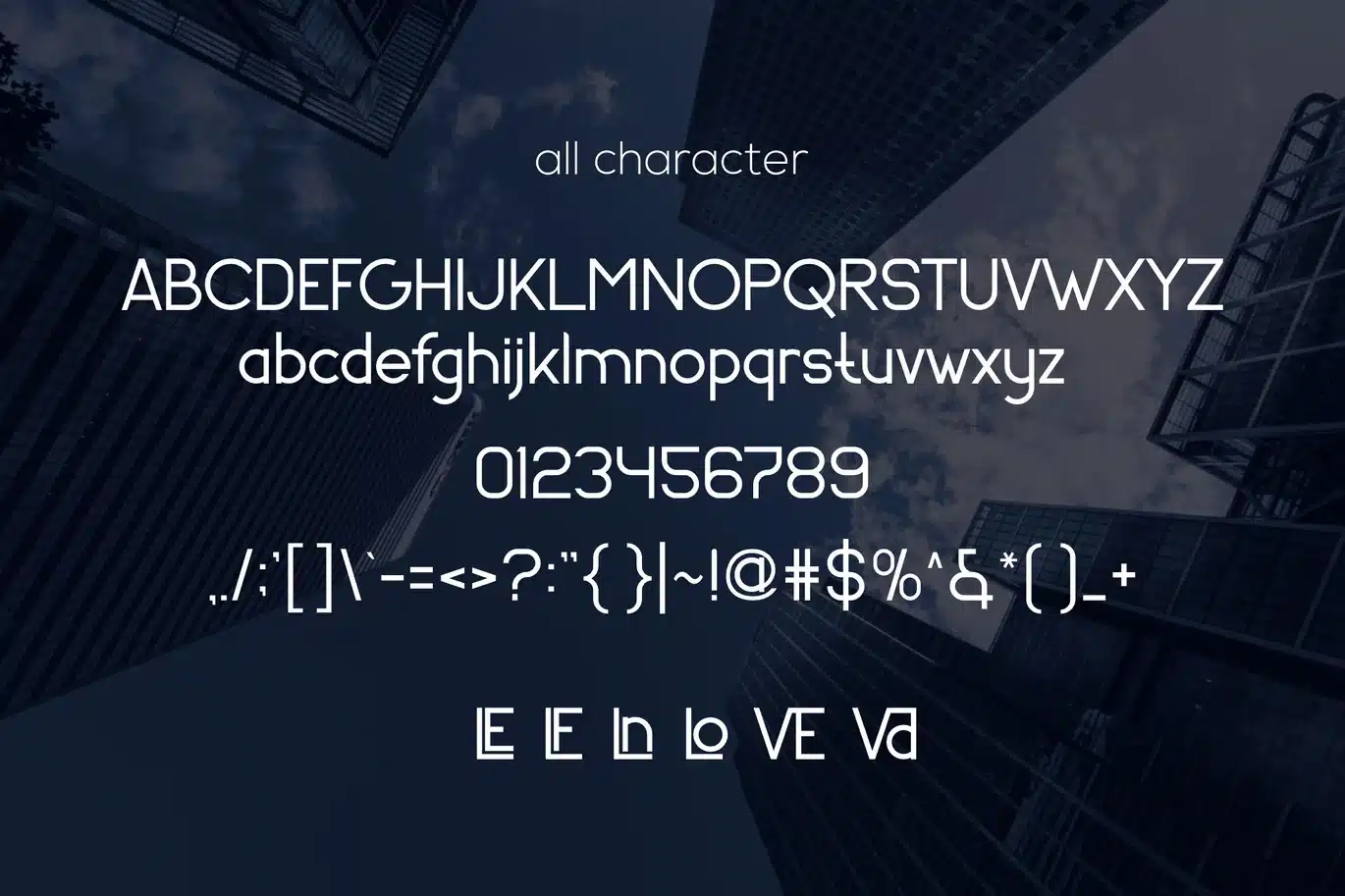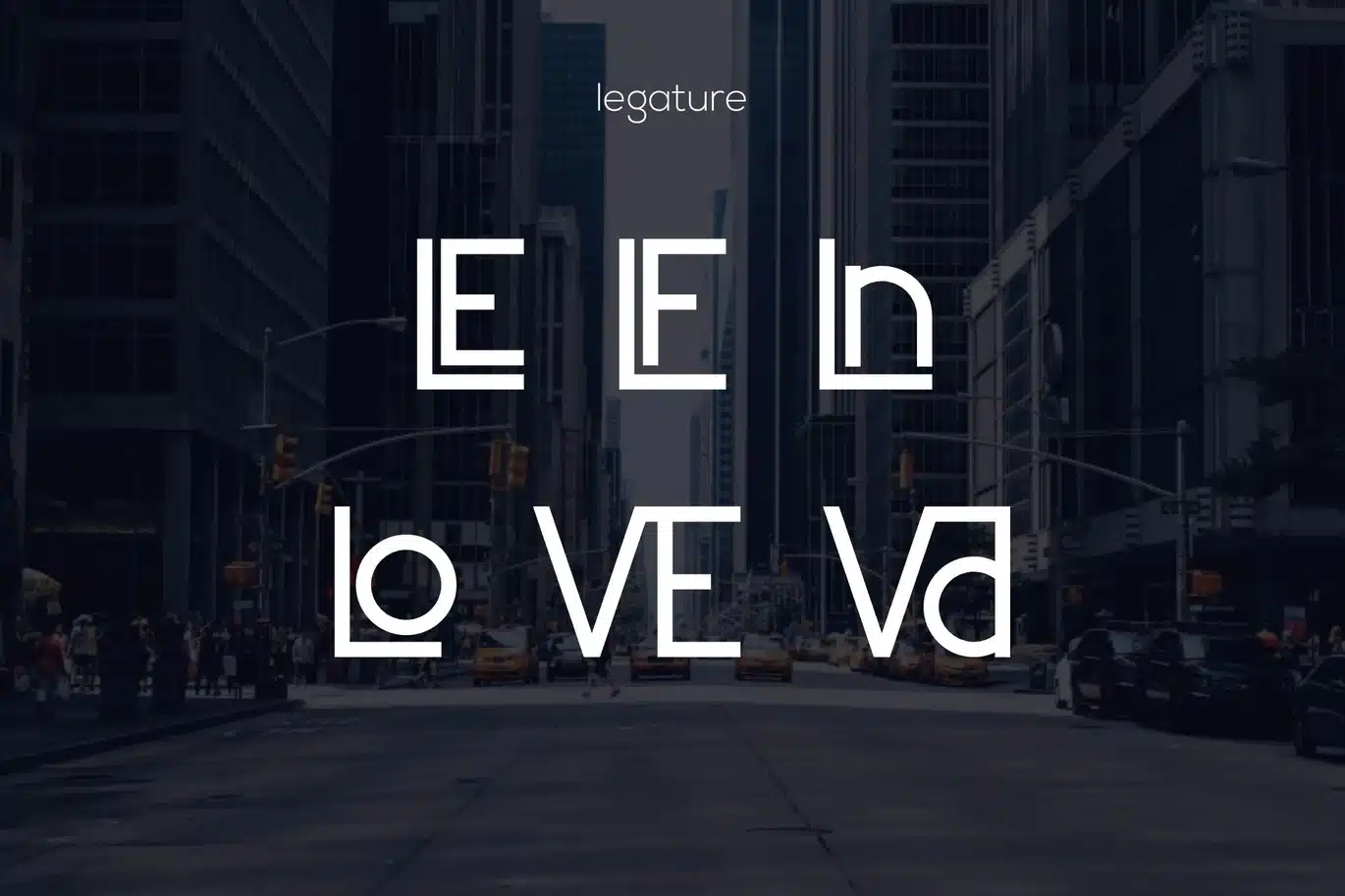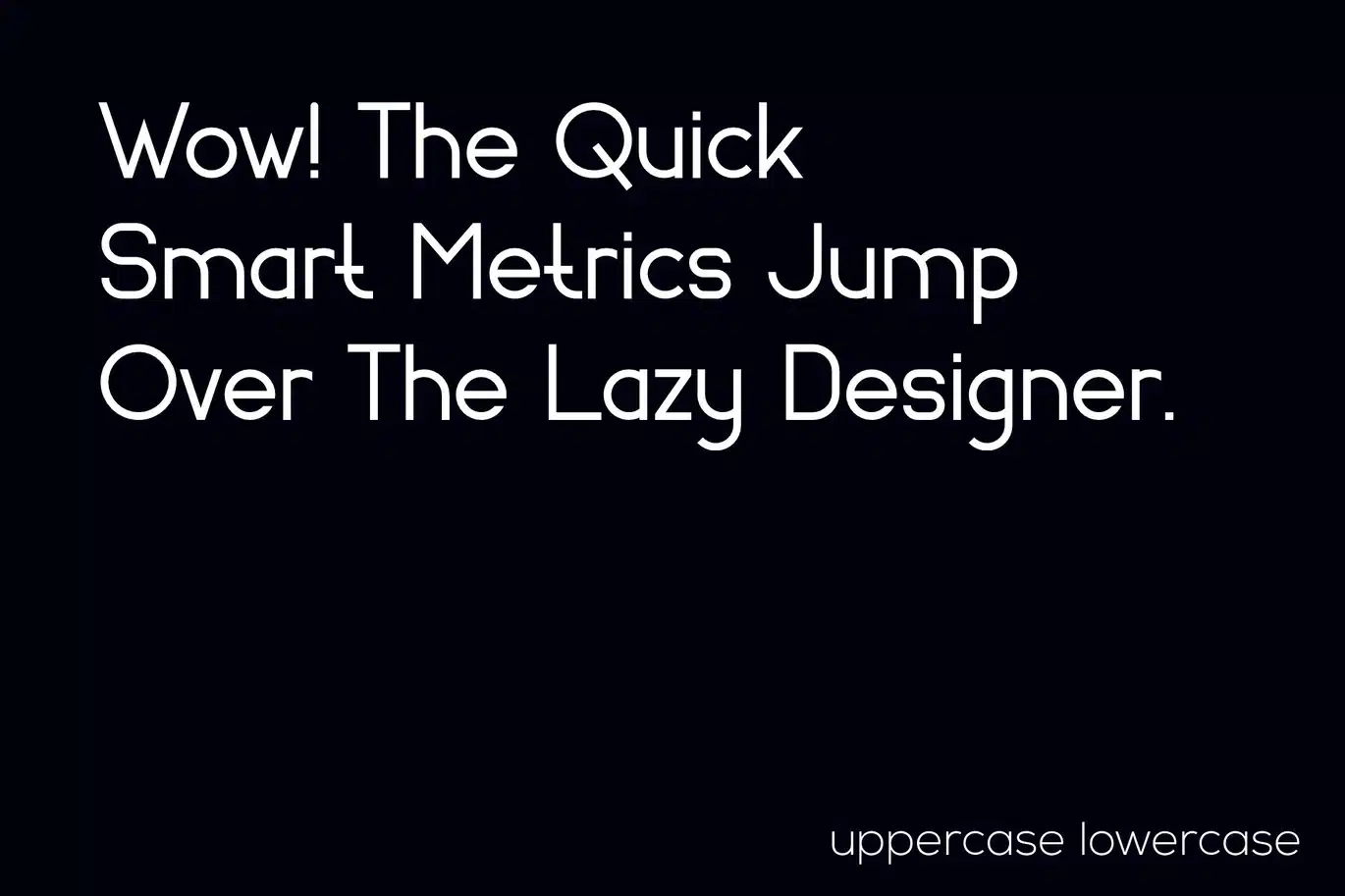
Qoeg – Sans Display Logo Font
Introducing our new product Qoeg - Sans Display Logo Font
Qoeg - Sans Display Logo Font is and awesome and authentic display font.
- Number & Symbol
- UPPERCASE, lowercase
- Legature